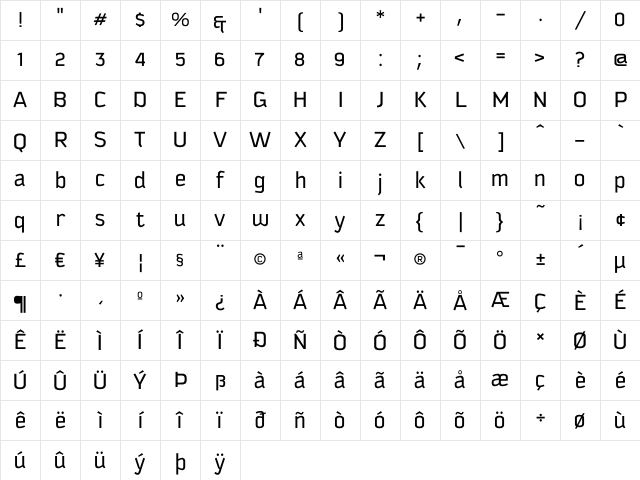
Kautiva Pro Regular
Foundry: Alejandro Paul y Alfredo Graziani
Designer: Alejandro Paul y Alfredo Graziani
Design Context for Kautiva Pro
Kautiva Pro is a composed and adaptable typeface that performs quietly and consistently across a wide range of design contexts.
Who designed the Kautiva Pro Regular font?